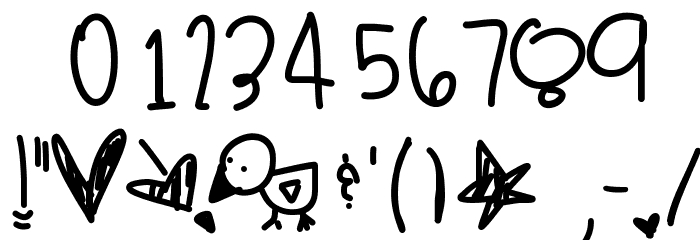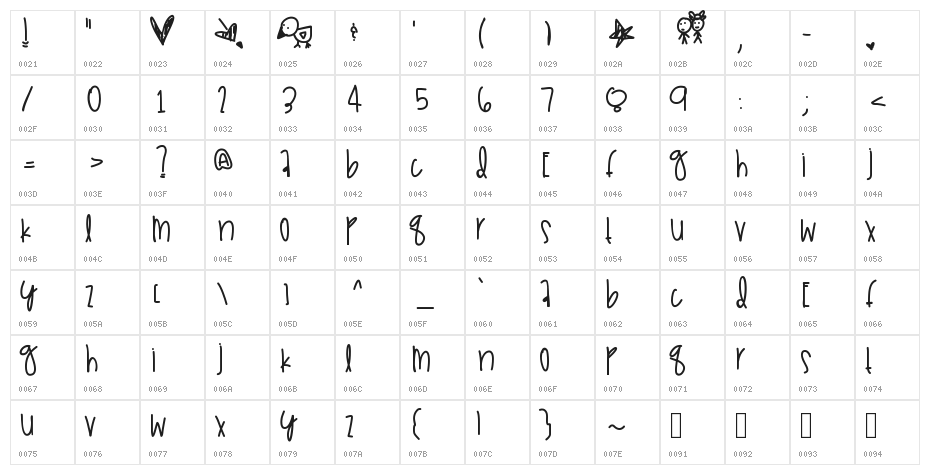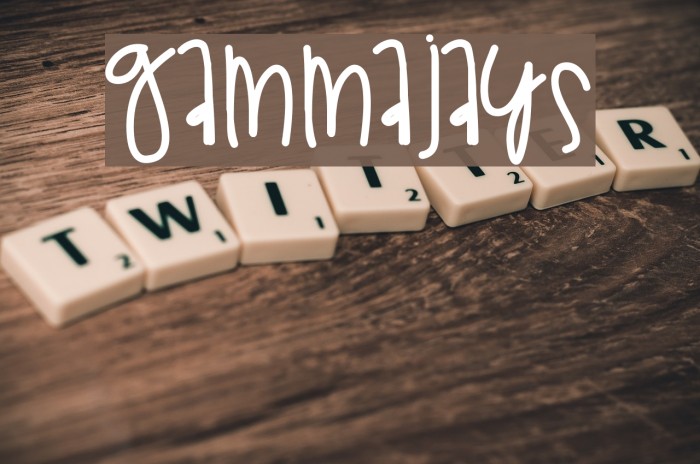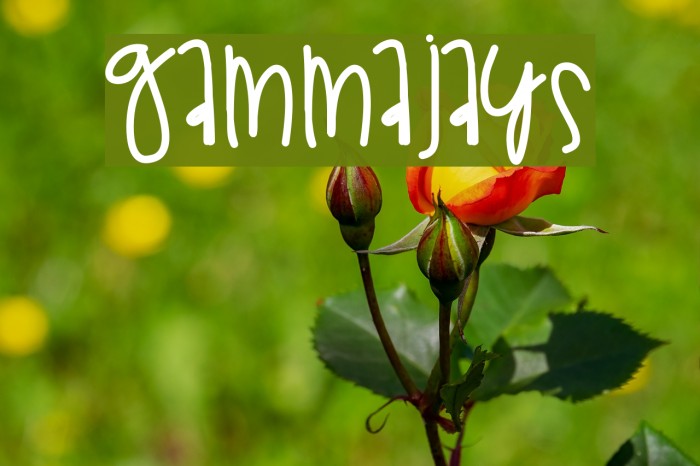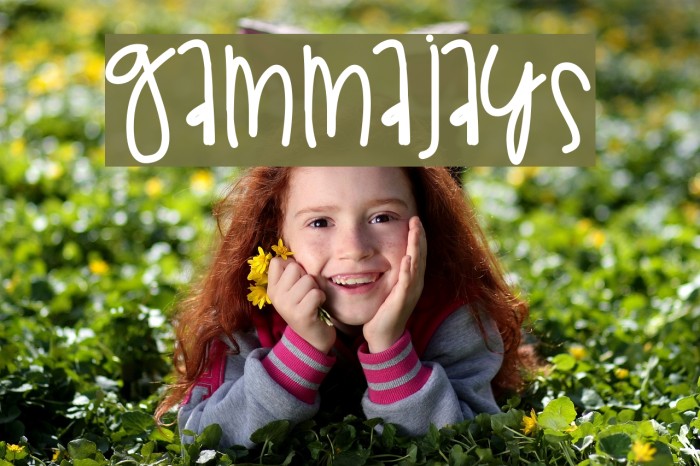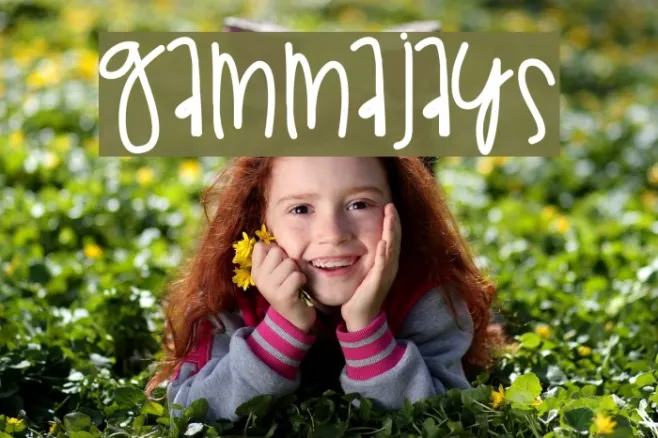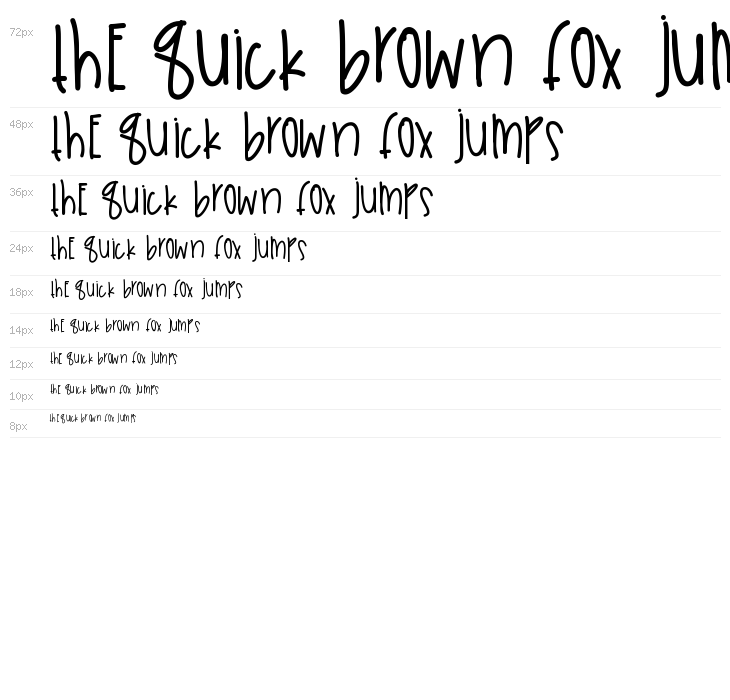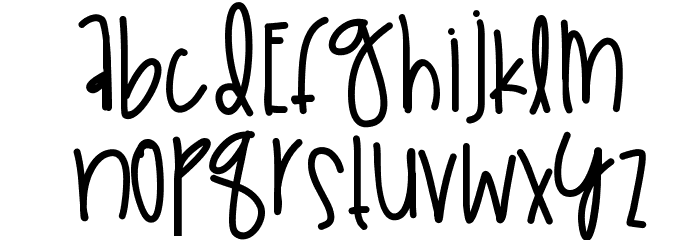
GammaJays Font
GammaJays Description
This playful and whimsical font features a handwritten style with a casual, friendly appearance. The letters are slightly irregular, adding a personal touch that feels both approachable and creative. The strokes are smooth and flowing, with a consistent thickness that maintains readability while offering a unique character. The numbers and special characters complement the alphabet with the same lively style, making it suitable for projects that require a touch of fun and informality. The overall design is versatile, perfect for capturing attention in a lighthearted manner.
| Use Case | Headlines, Logos, Informal text |
| Proposed Projects | Ideal for greeting cards, children's books, playful branding, and social media graphics. |